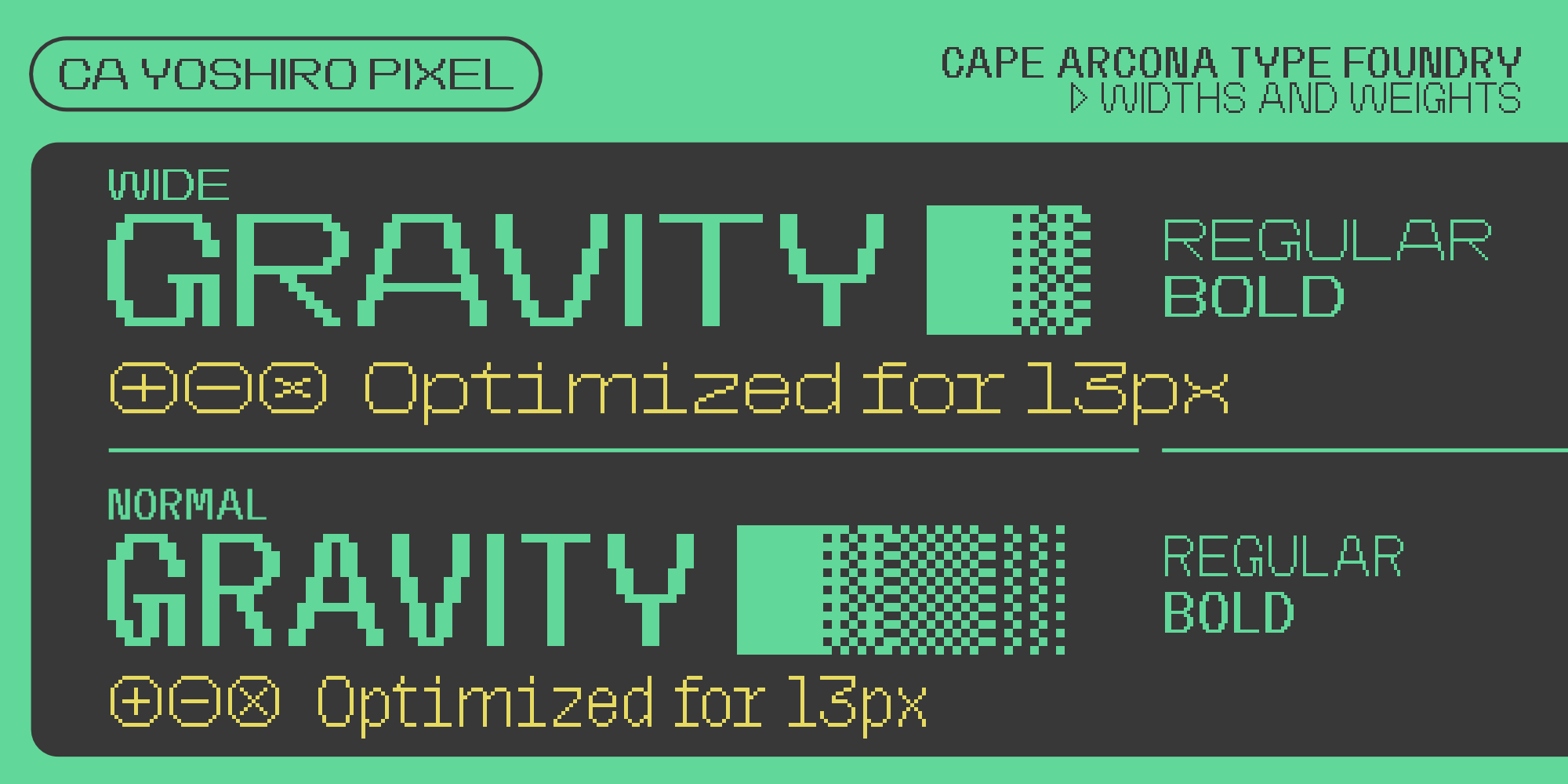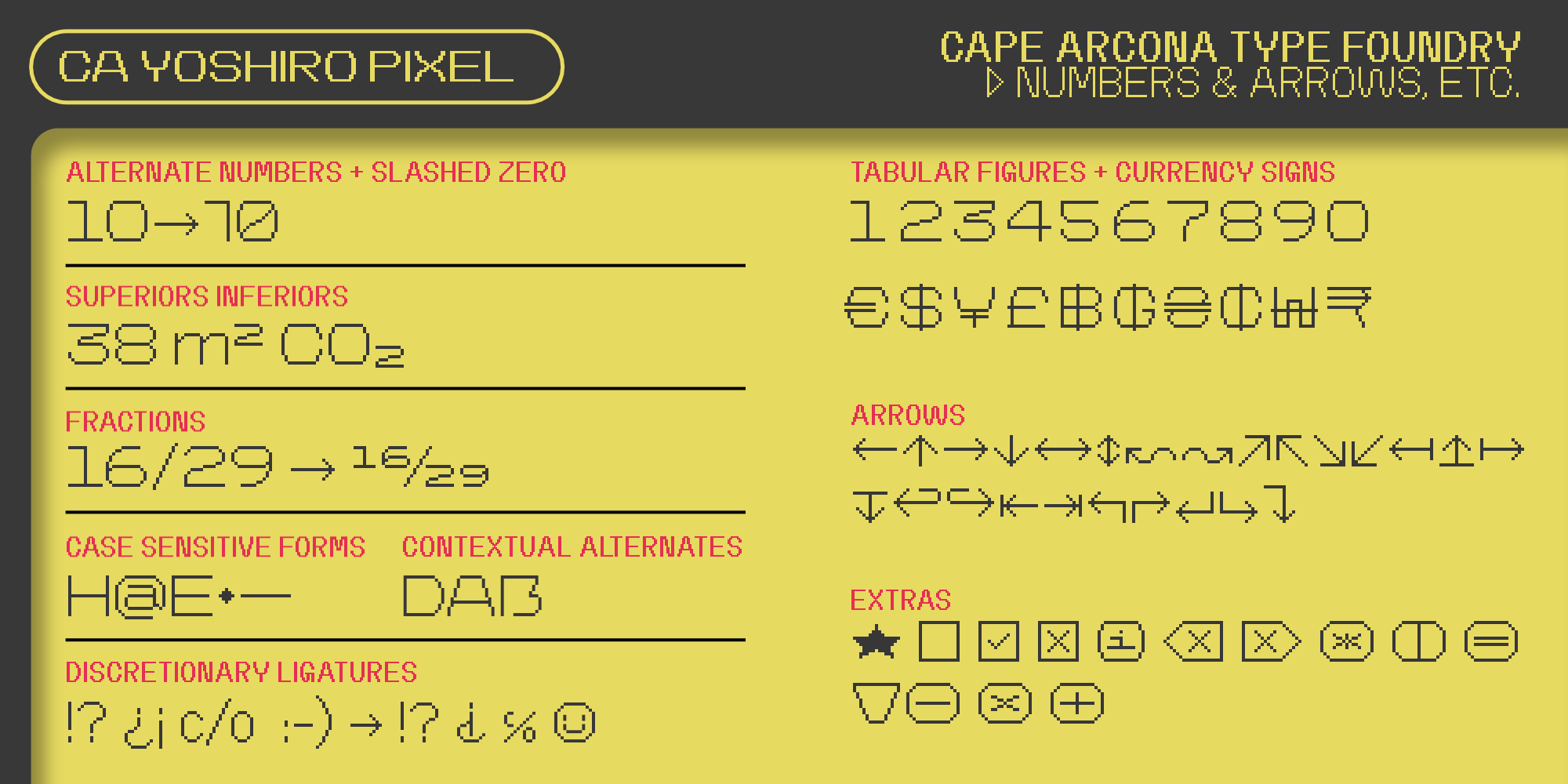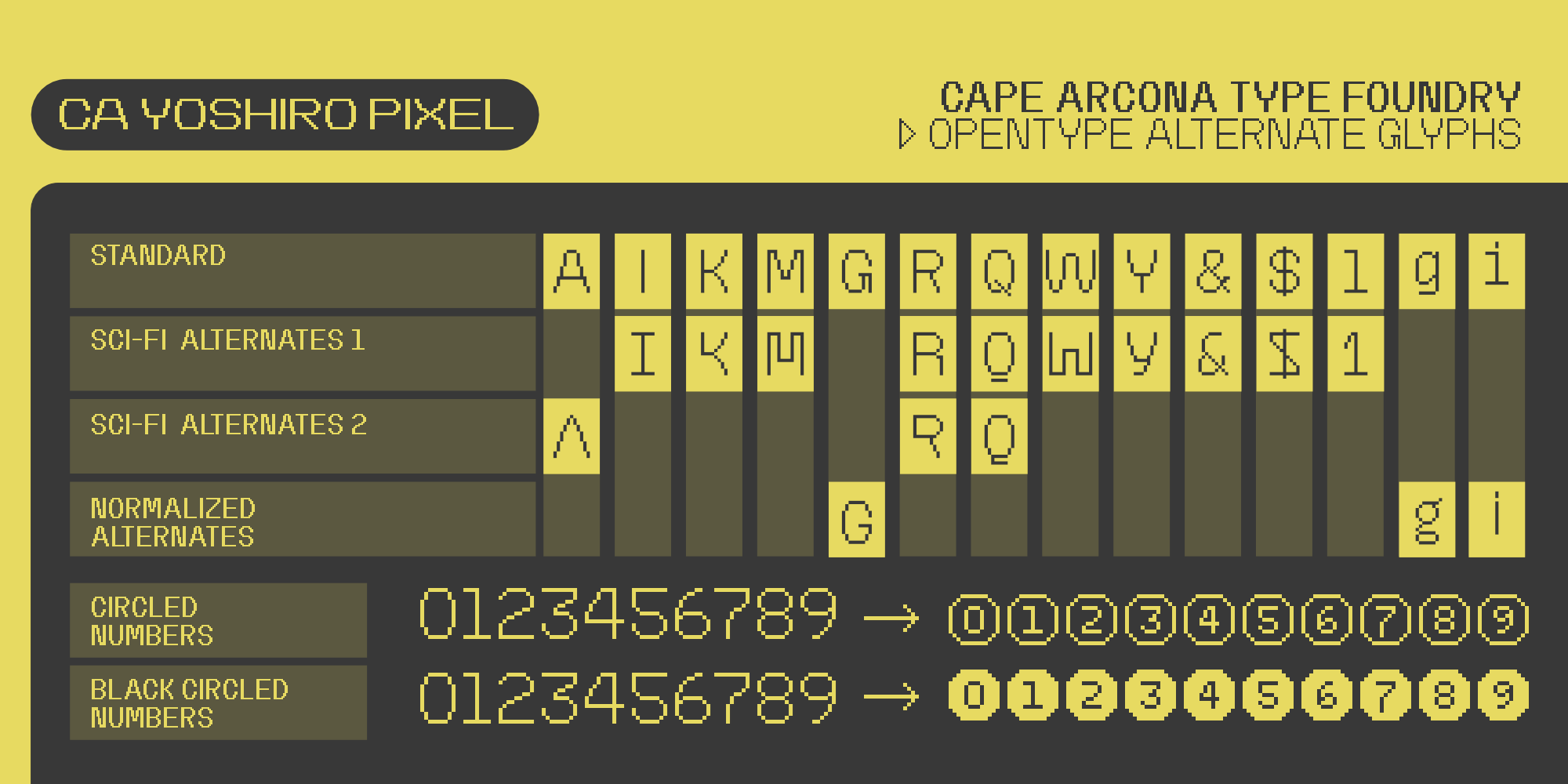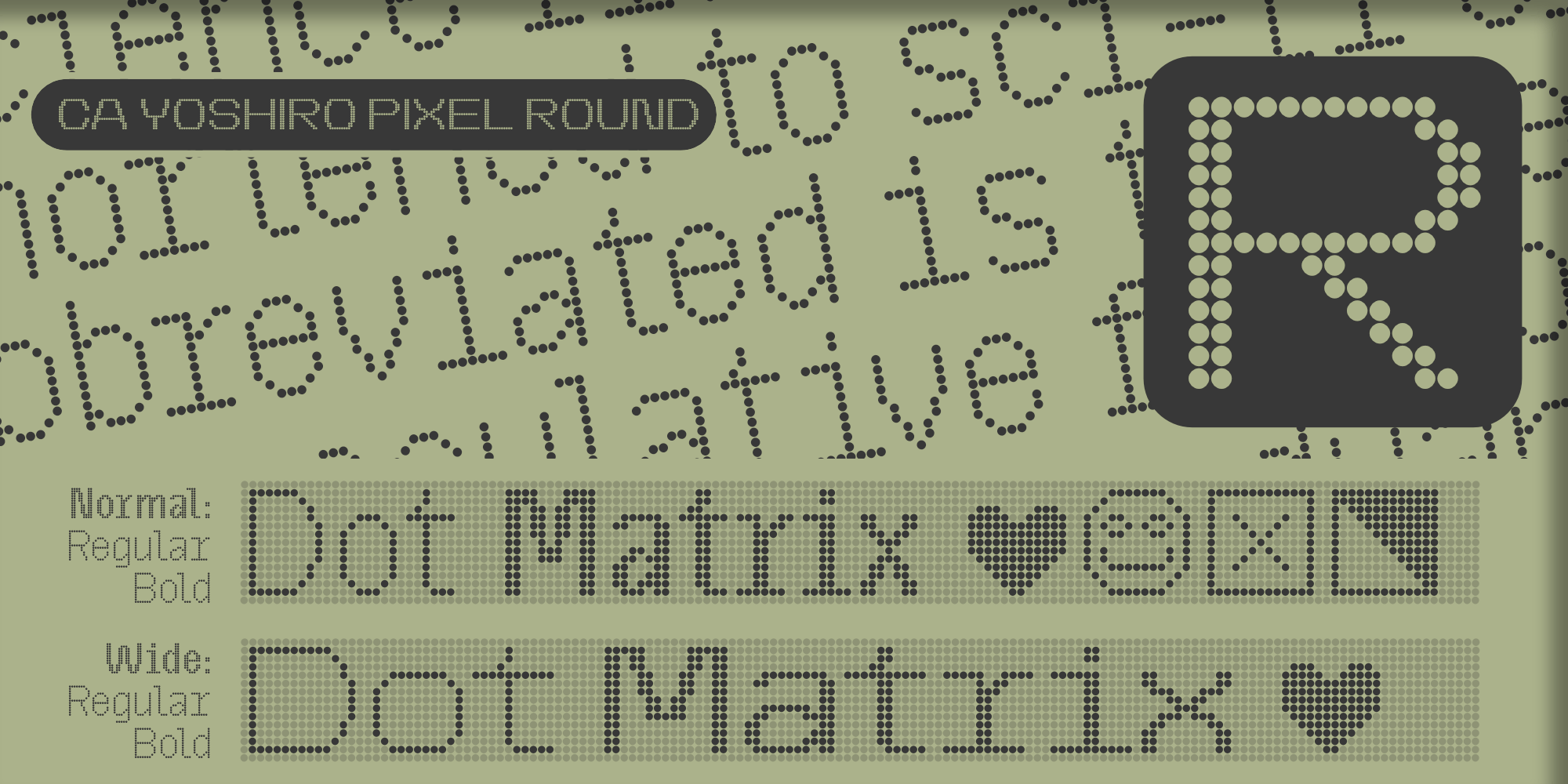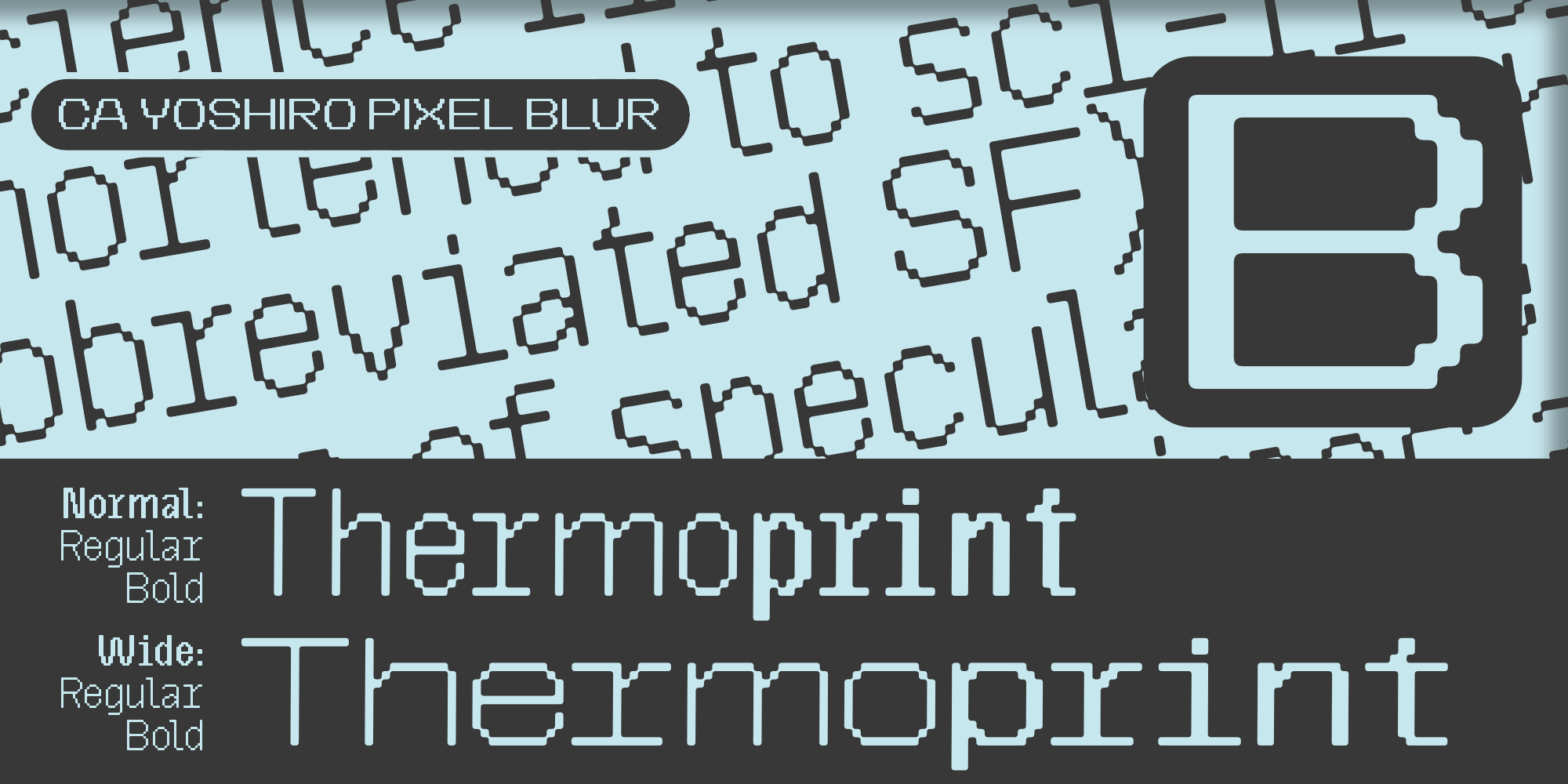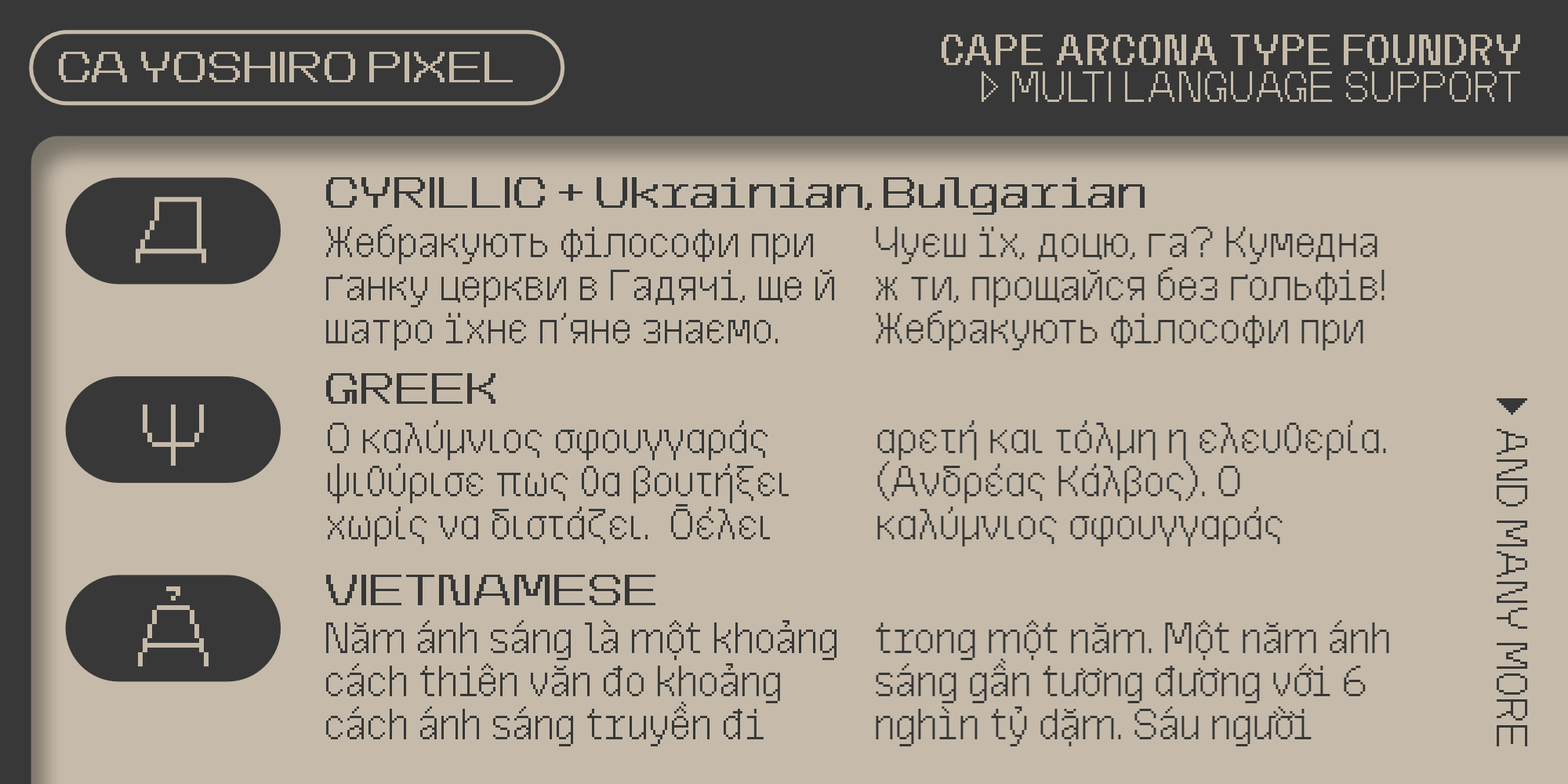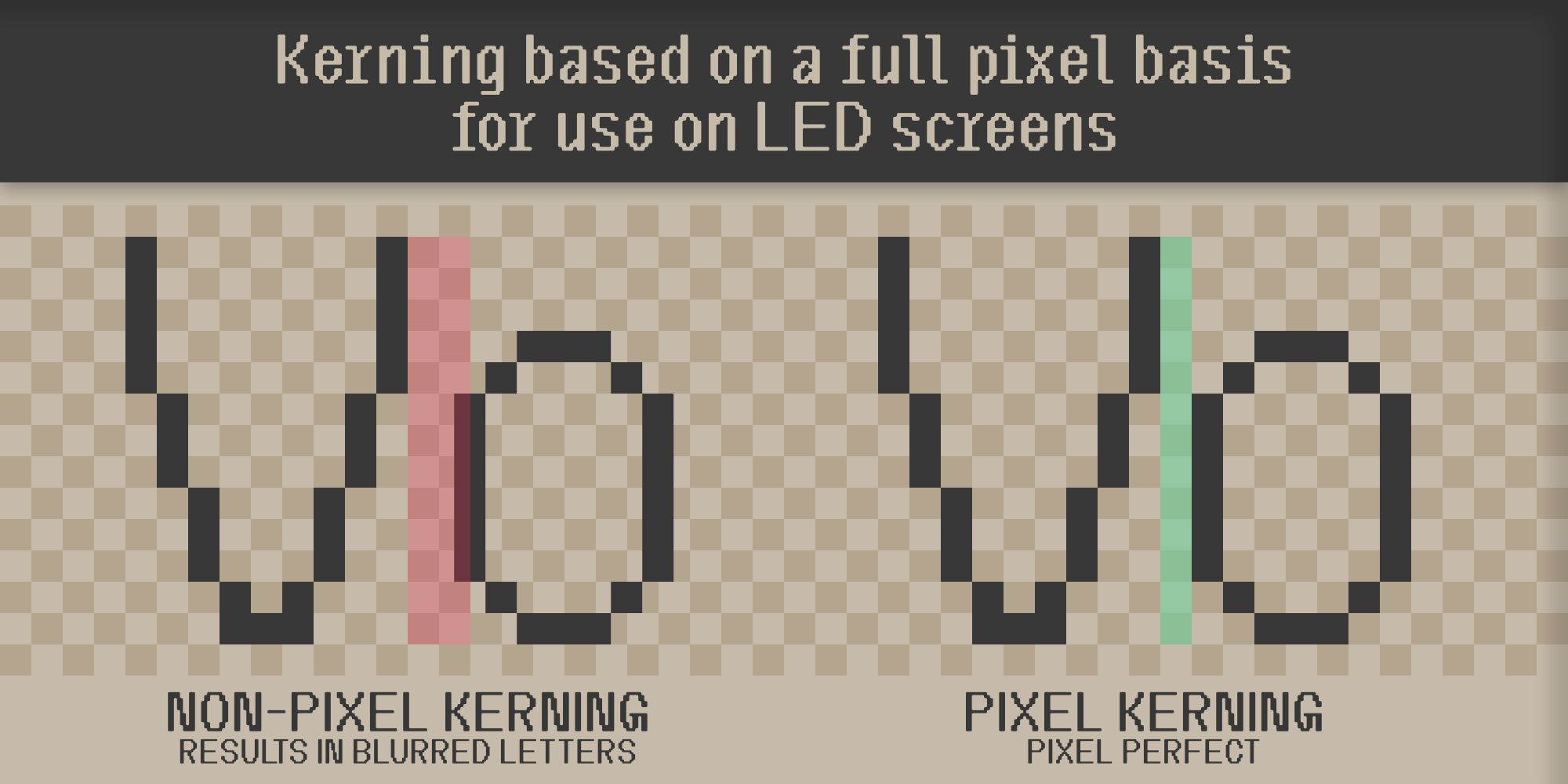
Where retro pixels meet sci-fi style.
CA Yoshiro Pixel takes the spirit of the classic CA Yoshiro font and rebuilds it from the smallest building blocks of the digital age — pixels. It’s bold, blocky, and unapologetically geeky — perfect for designs that live between vintage tech and future worlds.
The family comes in three flavors:
- Pixel – the clean, grid-perfect version. Use multiples of 13 px for razor-sharp precision.
- Pixel Blur – the hazy, connected version that looks like it came straight from a thermal receipt printer.
- Pixel Round – the friendly, dotted look of an old-school dot-matrix printer.
Each one includes Normal and Wide widths, plus Regular and Bold weights, giving you plenty of room to play.
It’s packed with alternates, stylistic sets, and over 1000 glyphs, supporting Latin, Cyrillic, Greek, and Vietnamese.
Whether you’re creating game graphics, glitch art, or futuristic branding, CA Yoshiro Pixel is your toolkit for pixel-perfect creativity with a sci-fi twist.